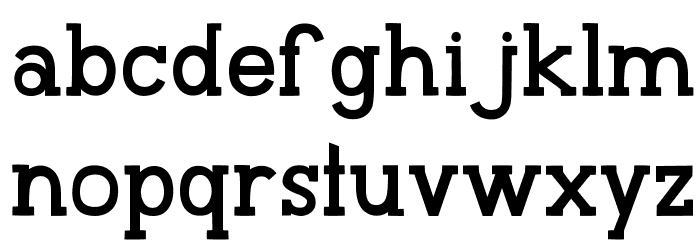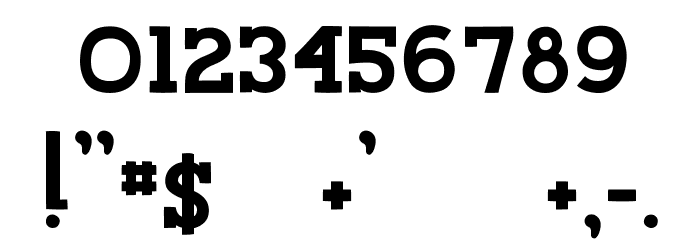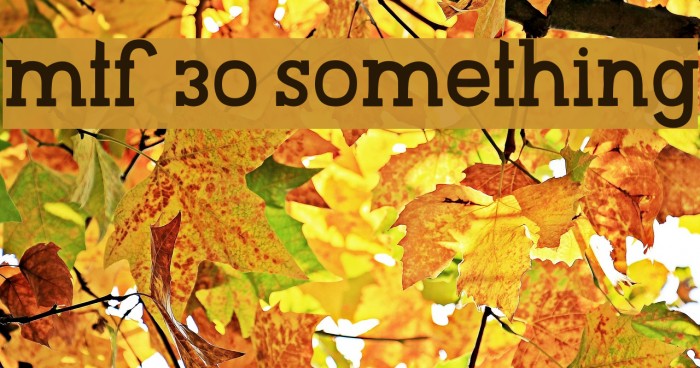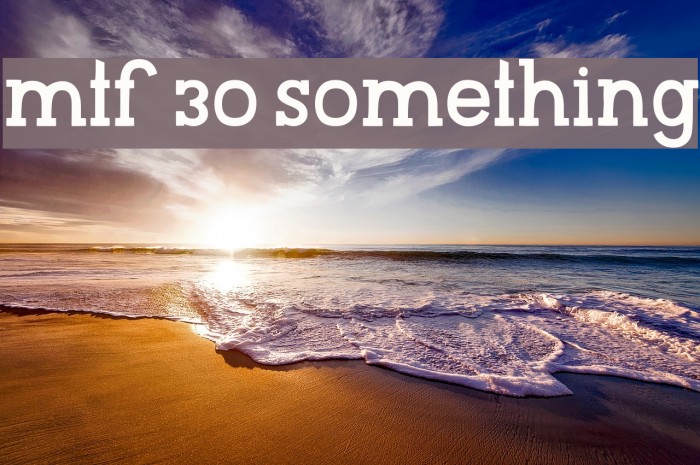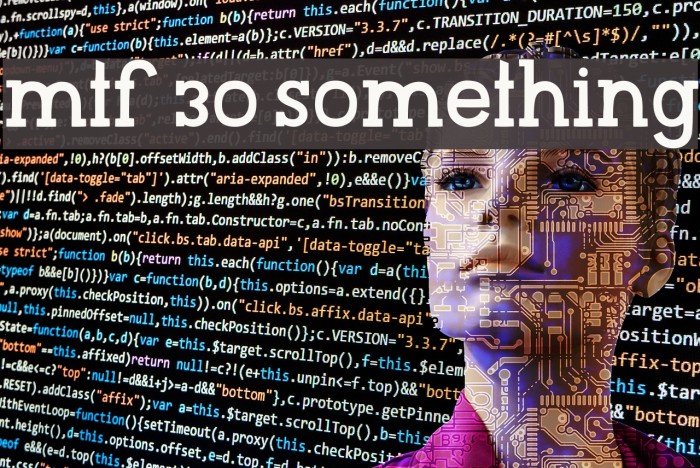
MTF 30 Something Font
This font features a bold and robust slab serif design, characterized by thick, block-like serifs that give it a strong and authoritative presence. The letters are evenly spaced, providing a balanced and structured appearance. The uppercase and lowercase letters maintain a consistent weight, enhancing readability. The numerals are clear and distinct, making them suitable for various applications. Special characters are well-defined, adding versatility to the font. Overall, this typeface exudes a classic yet modern feel, making it adaptable for both traditional and contemporary projects.
A bold slab serif font with strong, block-like serifs and balanced spacing.
- Proposed Projects: Ideal for headlines, posters, branding, and editorial design where a strong, impactful presence is desired.
- Category: Slab Serif
- Overall Style: Classic